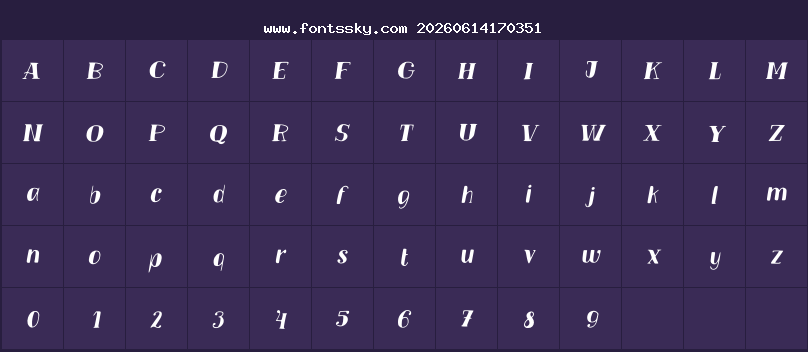
TM Vinograd Filled Oblique Preview
• Font Name: TM Vinograd Filled Oblique
• Designer: Vova Egoshin / Typemate
• Manufacturer: Vova Egoshin / Typemate
About TM Vinograd Filled Oblique.otf
TM Vinograd Filled Oblique.otf is a modern, elegant sans-serif font designed for ultimate readability and visual harmony. Perfect for branding, headlines, web design, and print materials.